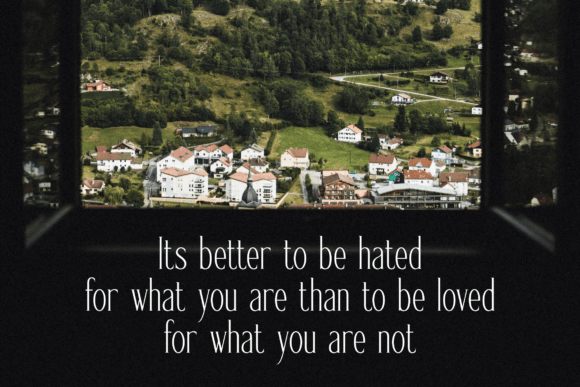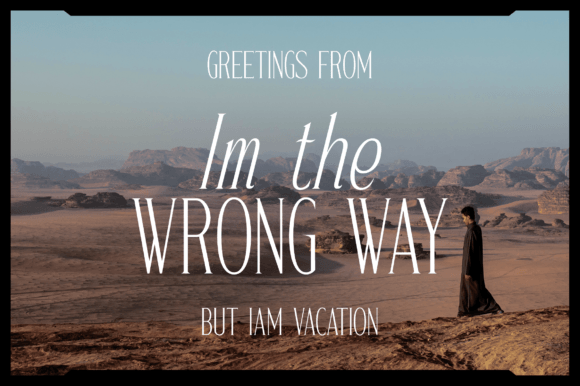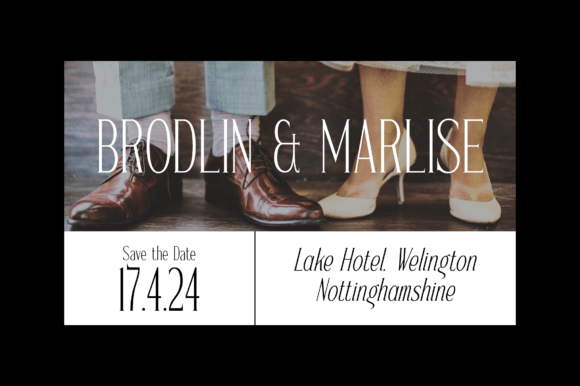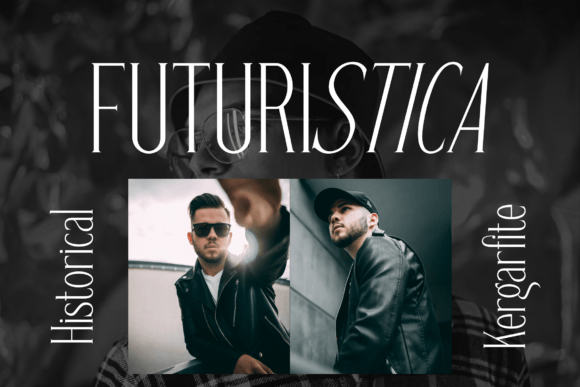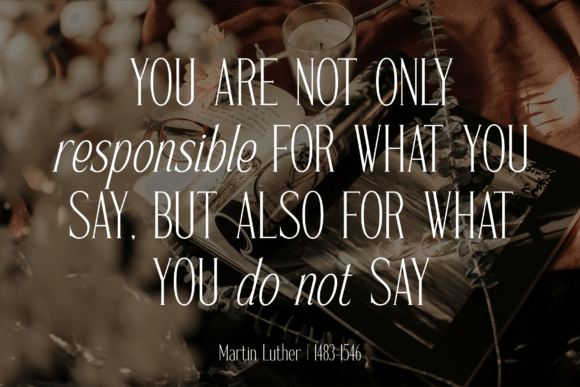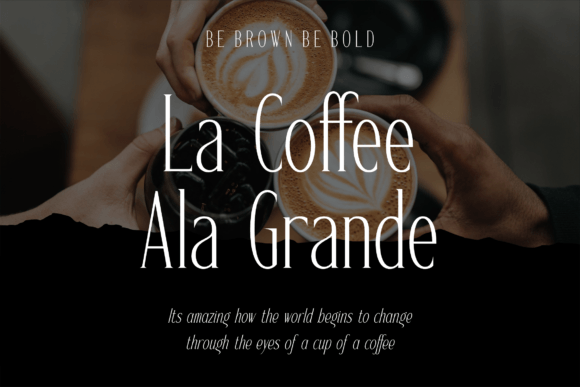
Introduction to Gadnesh Meteora Font
Gadnesh Meteora is an elegant serif font, perfect for an elegant & luxurious logo, book or movie title design, fashion brand, magazine, clothes, lettering, quotes, and so much more.
Key Features of Gadnesh Meteora Font
Why Choose Gadnesh Meteora Font?